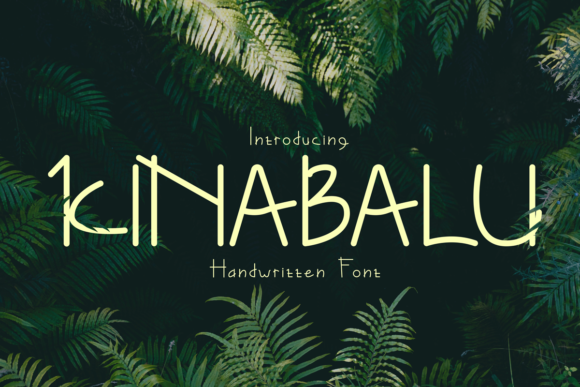
About Kinabalu Font
Kinabalu is a simple and clean handwritten font. Its informal style and casual vibe will make this font a go-to choice for each of the creations that require a relaxed touch.